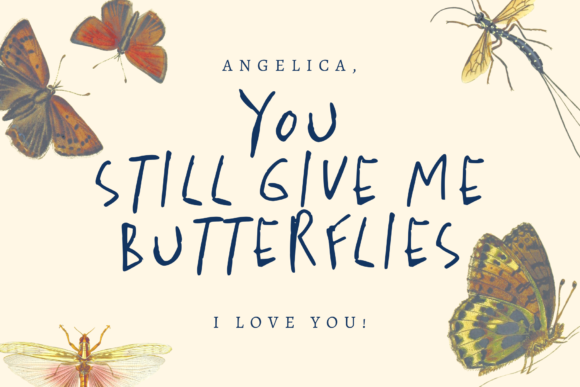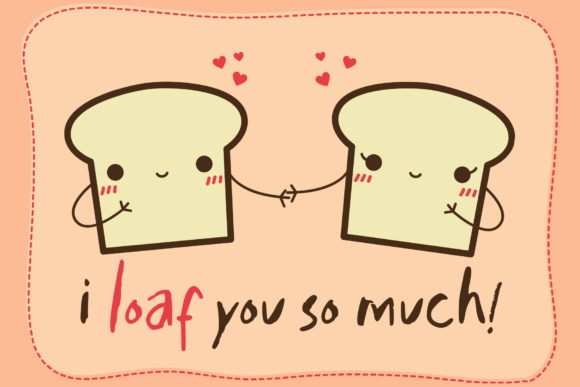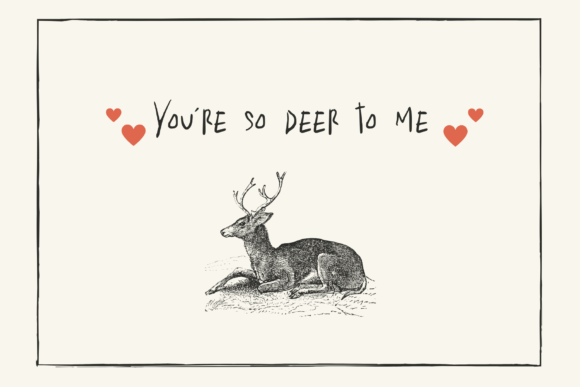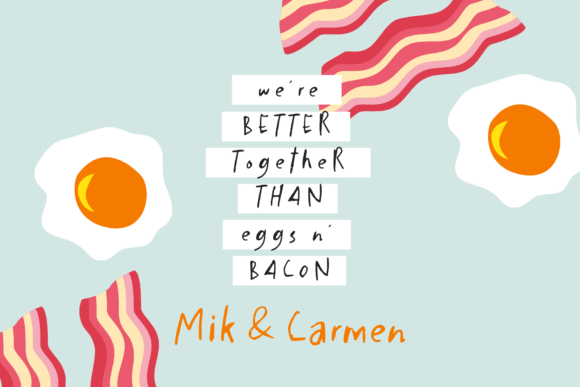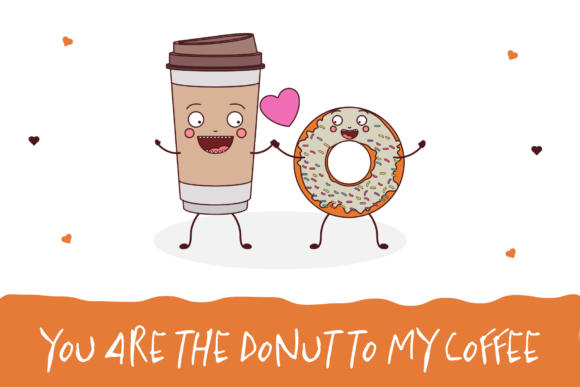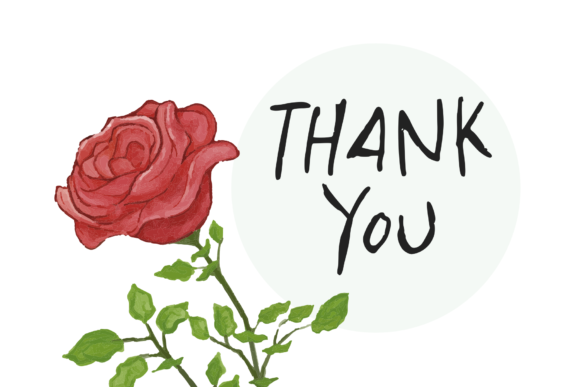
Introduction to Kindess Author Font
Kindess Author is an asymmetrical and quirky lettered handwritten font that can be used for all chalkboard quotes or teaching material.
Its authentic look will add a personal and realistic feel to your designs This font is PUA encoded which means you can access all of the glyphs and swashes with ease.
Kindess Author Font offers exceptional quality and versatility, making it a valuable addition to your design toolkit. Whether you’re creating for personal projects or commercial use, Kindess Author Font delivers professional results.